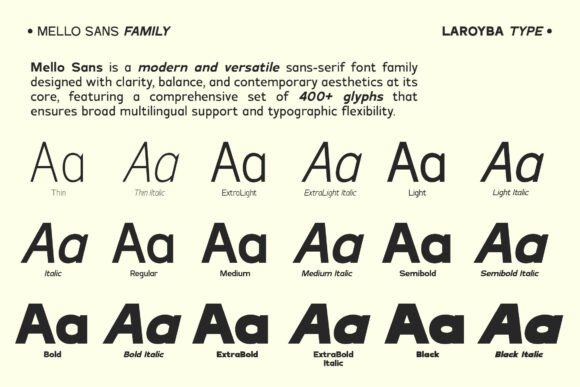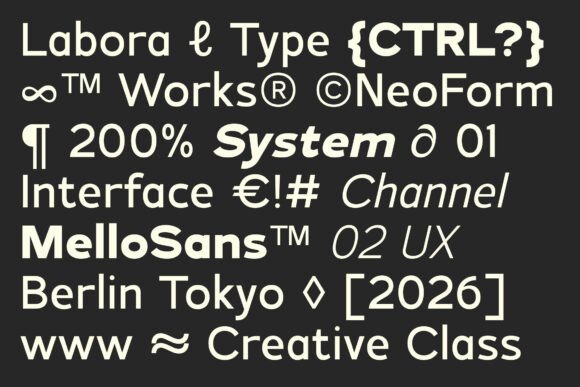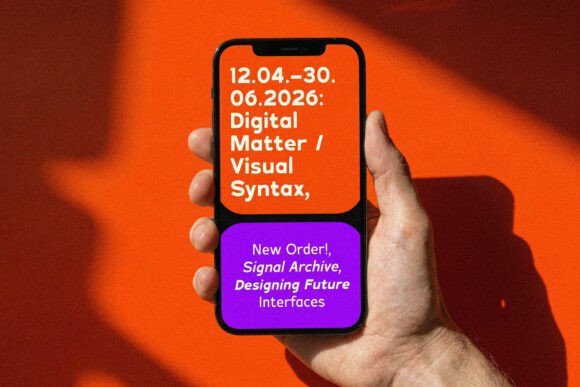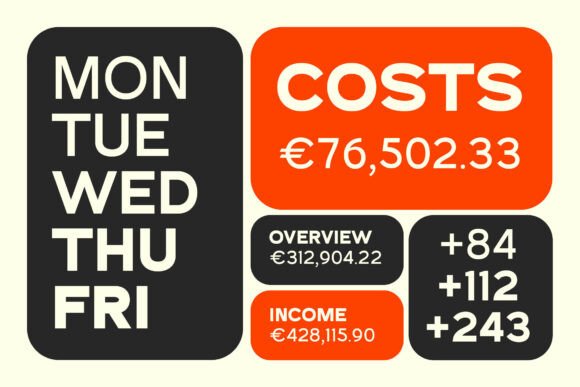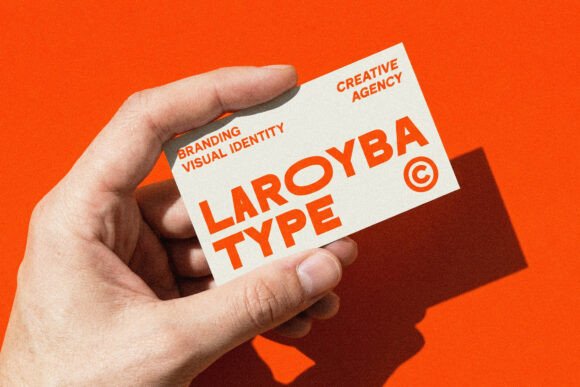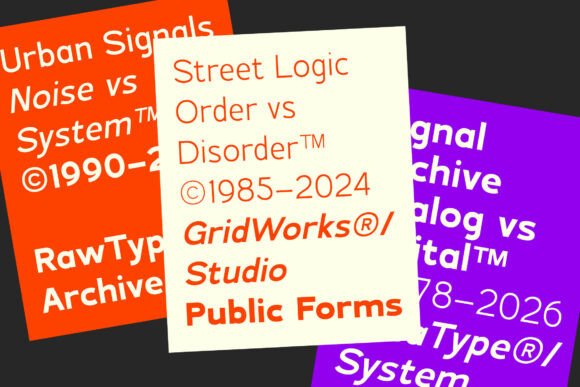
Introduction to Mello Sans Font
Have you ever stared at a blank design canvas, desperately searching for the perfect font to bring your creative vision to life? We’ve all been there. As designers, we understand the importance of a high-quality font that sets the tone for our entire project. That’s why we’re excited to introduce you to the Mello Sans Font, a clean and modern sans-serif font designed to deliver clarity and versatility.
With its minimalist shapes and balanced proportions, Mello Sans is the ultimate design resource for any creative project. Whether you’re working on a logo, website, social media campaign, or presentation, this font will keep your designs looking sharp and modern. Plus, with its transparent background, you can easily pair it with other fonts or graphics to create a cohesive look.
Key Features of Mello Sans Font
- High-quality, modern sans-serif font designed for use in creative projects and various design resources.
- Font size: 1000 glyphs, covering a wide range of languages and characters.
- Designed with a clean and minimalist aesthetic, making it perfect for use in logos, branding, and digital products.
Honest Review: Mello Sans Font
What works well: ✨ The Mello Sans Font has a clean and modern design that looks great on both light and dark backgrounds. It’s also super versatile and comes in a range of weights, making it perfect for titles and body text. Plus, it’s free to download, which is always a bonus!
Here are some of the key features I love about the Mello Sans Font:
- Clean and modern design
- High-quality vectors
- Range of weights (light, regular, bold)
What doesn’t work so well: ⚠️ The font can look a bit flat on certain backgrounds, and the transparent background option can sometimes make the text difficult to read. However, these issues are relatively minor and can be easily fixed with some design tweaks.
Overall, I’m really impressed with the Mello Sans Font. It’s a great addition to any design arsenal, and I’d definitely recommend it to fellow designers. With its high-quality design and transparent background option, it’s perfect for any creative project that requires a clean and modern look.
Tips for Getting the Most Out of Mello Sans Font
To get the most out of this font, use it on a transparent background to create a clean and modern look. Experiment with different font sizes, colors, and combinations to add depth and visual interest to your design.
The Mello Sans Font is ideal for a wide range of creative projects, including:
Comparison to Mello Sans Font: While Open Sans is more geometric and modern, Mello Sans Font has a softer, more rounded feel. Open Sans is ideal for projects requiring a high level of readability, whereas Mello Sans Font is better suited for projects with a more playful tone.